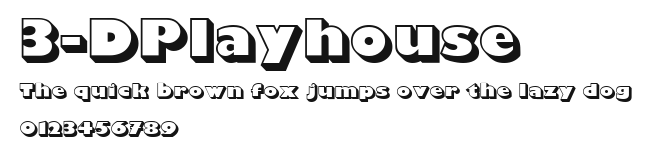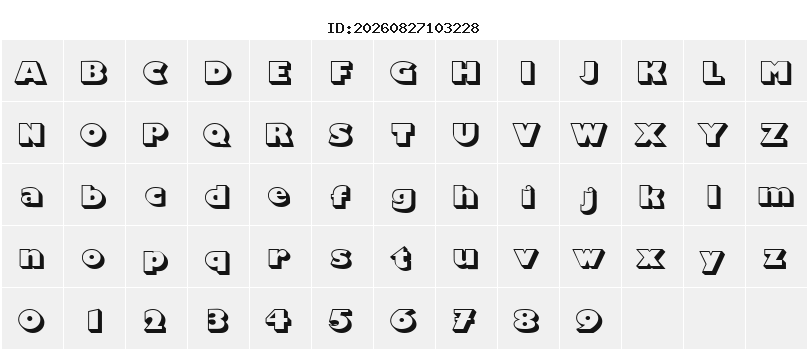
• Font Name: 3-DPlayhouse
• Font ID: 3-DPlayhouse
• Full Font Name: 3-DPlayhouse
• Version: 1.0 Mon May 03 14:13:02 1993
• PostScript Name: 3-DPlayhouse
• Character Count: 173
About 3-DPlayhouse.ttf
3-DPlayhouse.ttf is a modern, elegant sans-serif font designed for ultimate readability and visual harmony. Perfect for branding, headlines, web design, and print materials.